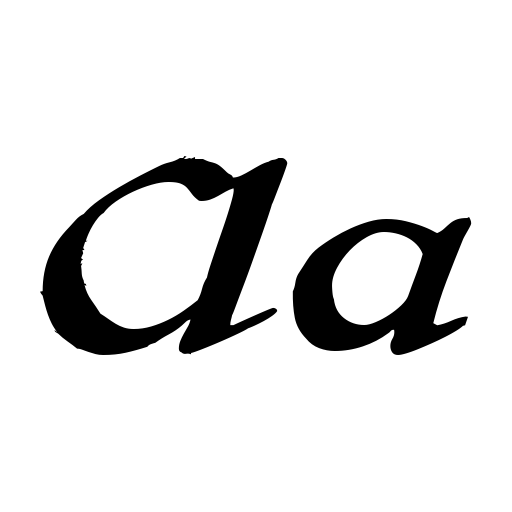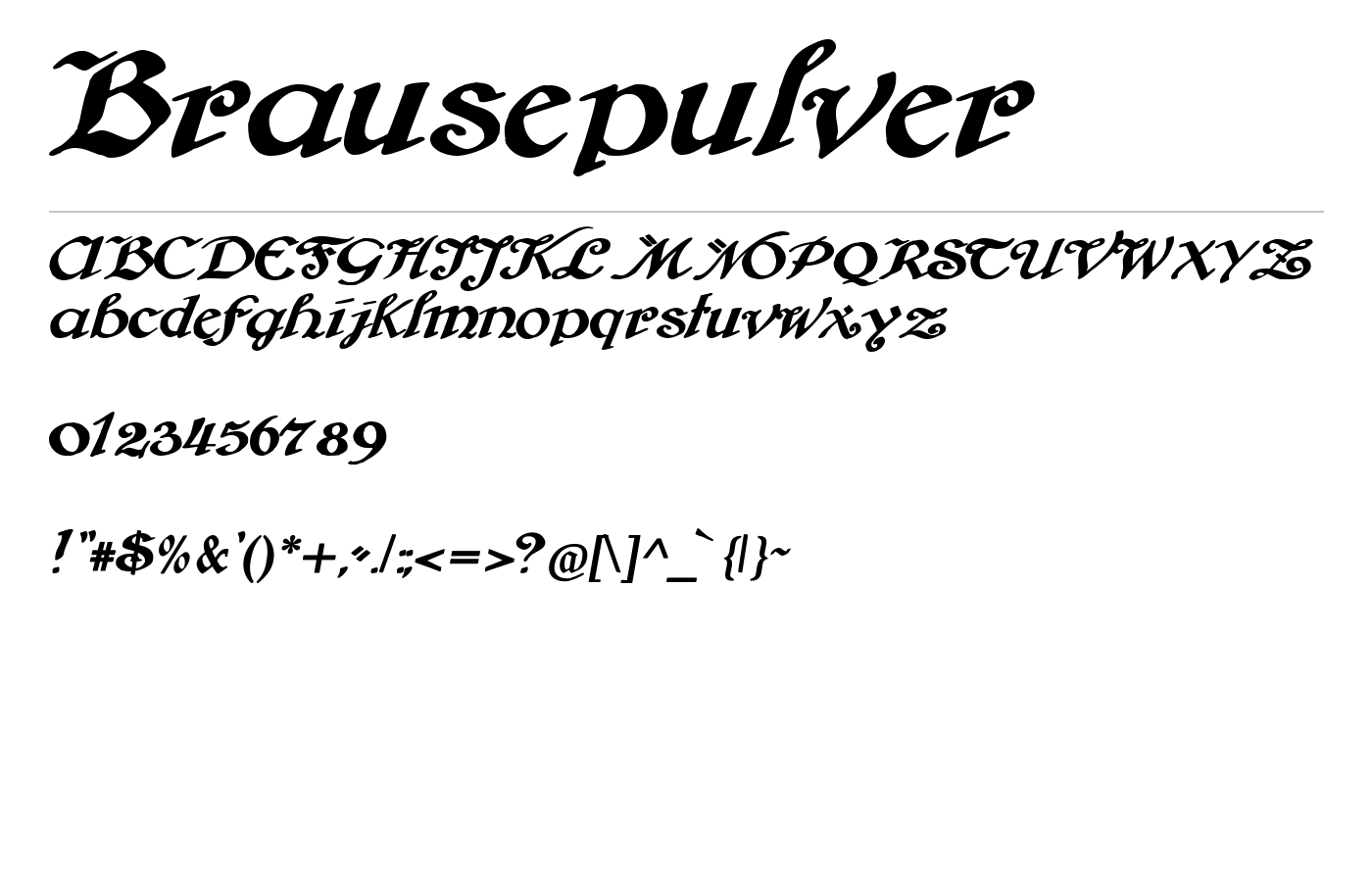
Brausepulver is a bold, calligraphic serif font that exudes an old-world, handcrafted charm with its sharp, dramatic strokes and flowing italicized forms. Its decorative letter shapes and pronounced contrast make it ideal for vintage branding, elegant invitations, or anything seeking a historical, artistic flair. This font works best in headlines and display settings where its intricate style can truly stand out.
Brausepulver Font
About Brausepulver Font
| Font family | Brausepulver Font |
| Designer | Brause & Co. 1912 |